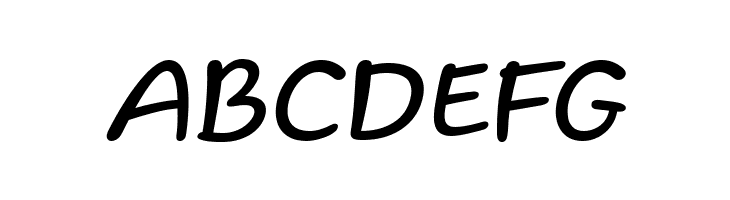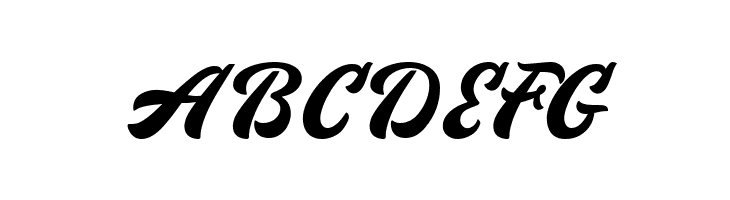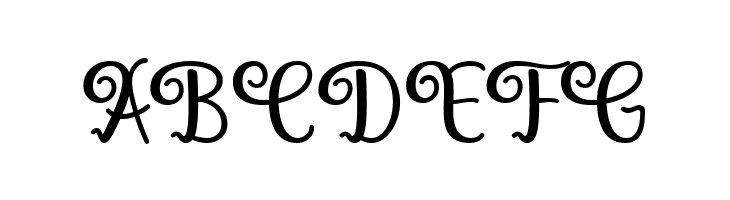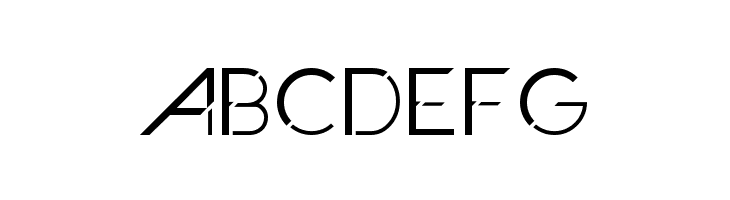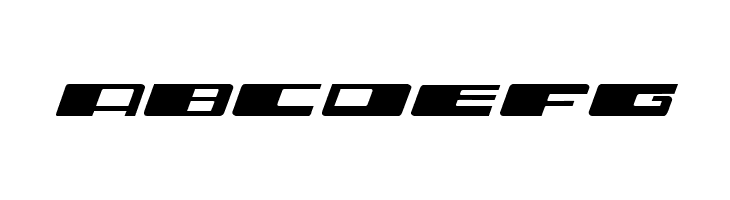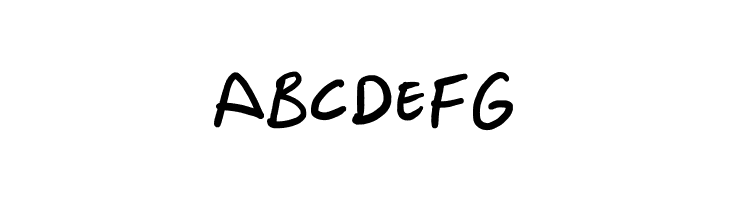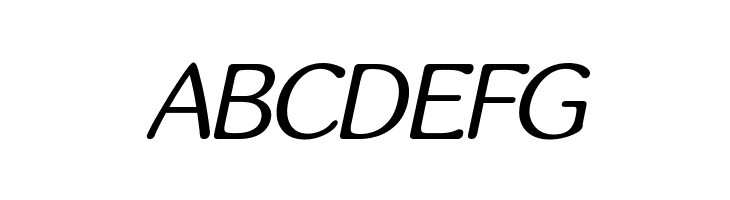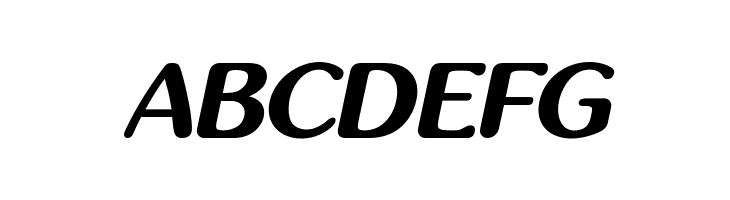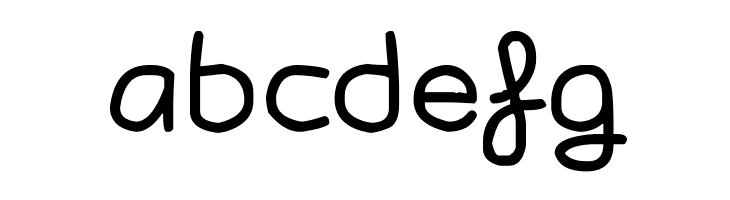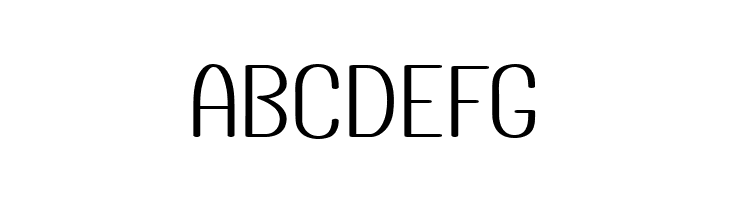
A classic serif font with modern elegance and refined letterforms.
An elegant script font with flowing, interconnected cursive letterforms.
A refined and elegant font with thin, uniform strokes and generous spacing.
A playful, rounded font with smooth curves and a friendly appearance.
A playful, rounded, handwritten-style font with a friendly appearance.
A smooth, italic font with a modern and elegant style.
An elegant script font with flowing, interconnected letters and a classic calligraphic style.
A playful, cursive font with bold, sweeping curves and artistic flair.
A graceful script font with flowing, connected strokes and elegant curves.
A playful, hand-drawn font with varied stroke thickness and a whimsical style.